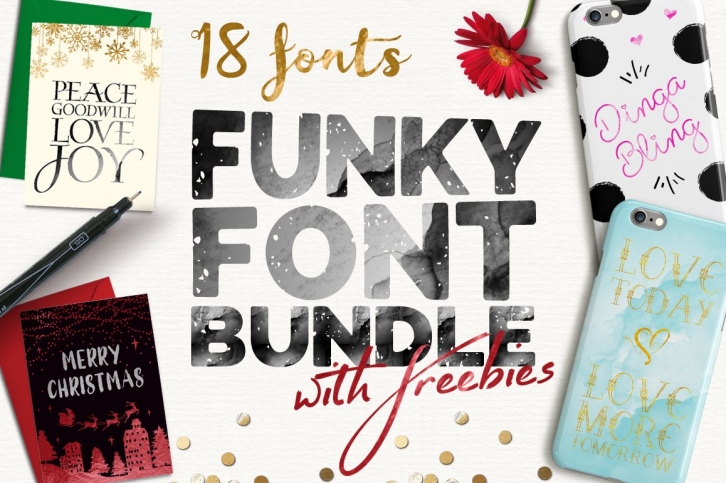
Get yer mouse grooving with this Funky Font Bundle of 18 fonts! Everything from calligraphy to handwriting style and not only that - I'm giving you some freebies I made too!
Magical - A rough edged, handpainted caps and small caps font;
Joella - A lovely brush script font with alternates, available separately here: https://creativemarket.com/PhotographyLogos/320634-Joella-brush-script-font It's also available in my first Font Bundle here: https://creativemarket.com/PhotographyLogos/319825-Font-Bundle
Artful Beauty - great for any project which requires the popular, sought after, hand painted touch. Available separately here: https://creativemarket.com/PhotographyLogos/403350-Artful-Beauty-brush-font
Alamanda - Alamanda is a hand drawn, elegant, modern calligraphic font perfect for wedding design projects, invitations, greeting cards, elegant designs and more. Alternates and swashes included;
Regular Rolf - Give your designs a free flowing feel with this brand new signature style font;
DESIGNER - A casual caps font. Another new font which includes upper and small caps (no lowercase glyphs);
Joanne Marie Script - https://creativemarket.com/PhotographyLogos/228307-Joanne-Marie-Script-Font-logo
Heavenfield Mono - A script font with alternates and end swashes.
Dramatic Caps - A hand lettered rough all caps font for your hand lettering styled designs.
Joanne Marie - An additional version of my Joanne Marie font collection. Simple, clear and casual;
Gladys Love - Quirky and fun hand lettered caps font.
Twingo - A rough edged vintage serif font;
Paddy - Another lovely casual handwritten style font;
Stephen Type - perfect for signatures https://creativemarket.com/PhotographyLogos/233632-Signature-font-Stephen-Type-logo;
Superstar - A new marker style font;
Skedaddle - For the young ones;
Skedaddle tall - A taller version of Skedaddle;
Artist Brush Script - a brush font to give that hand painted feel to your designs.